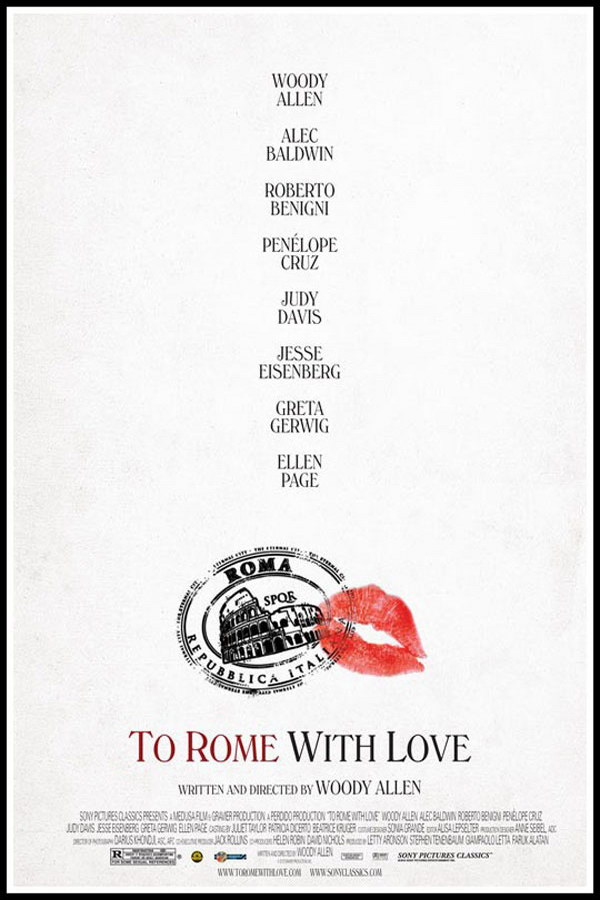
To Rome with Love Font
Fonts in UseTo Rome with Love is a 2012 romantic comedy film directed by Woody Allen. It follows several intertwined storylines, including a retired opera director trying to jump-start his career, a young couple caught up in a whirlwind romance, and an ordinary man who suddenly finds himself famous.
The poster's movie title font is likely Windsor Light Condensed, an old-style serif display typeface that Eleisha Pechey originally designed in 1905. Windsor is a commercial font, and additional information is available here.